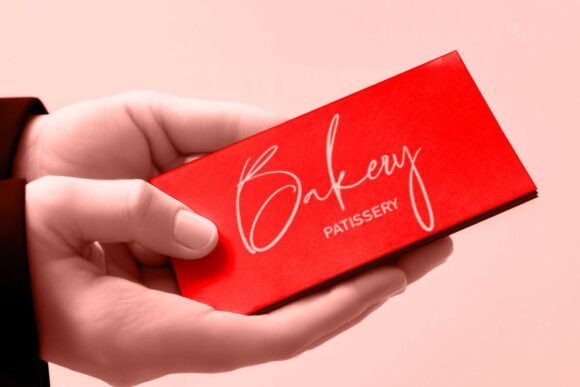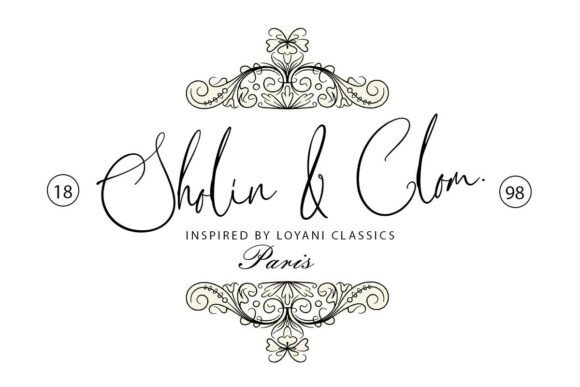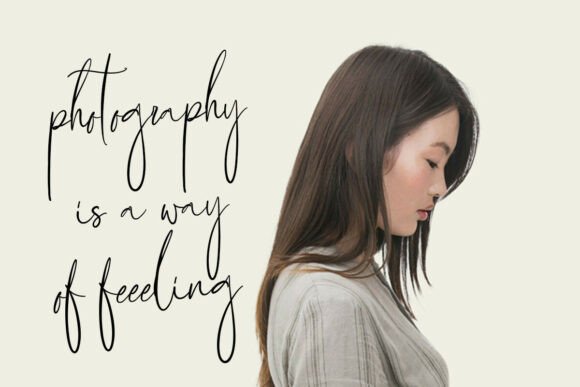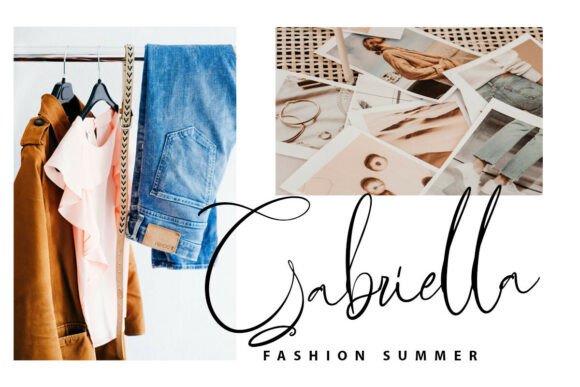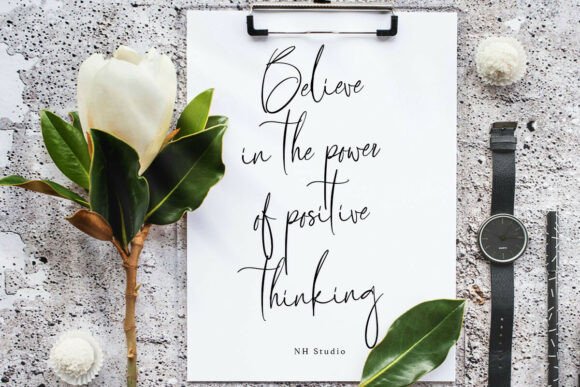
Introducing Bantha England Font: Elevate Your Designs with Artistic Flair and Contemporary Elegance
In the world of typography, few fonts manage to strike a balance between artistic expression and modern sophistication. Bantha England Font is one such exceptional typeface that brings together the fluidity of brush strokes, the dynamism of curves, and the expressiveness of letterforms. This stylish script font is designed to infuse your designs with a creative and sophisticated touch, making it perfect for a wide range of applications, from logos and invitations to packaging and social media graphics.
The Artistry of Bantha England Font
Bantha England Font is inspired by the art of hand-painted calligraphy, but with a modern twist that sets it apart from traditional script fonts. Its fluid brush strokes give each letterform a sense of movement and energy, as if they were painted by hand with a brush. The dynamic curves and expressive letterforms add a level of sophistication and elegance, making this font ideal for designs that require a touch of luxury and refinement.
Key Features of Bantha England Font
- Fluid Brush Strokes: The font’s fluid brush strokes give it a natural, hand-painted look that adds warmth and character to any design.
- Dynamic Curves: The dynamic curves in Bantha England Font create a sense of movement and fluidity, making it perfect for designs that require a sense of energy and dynamism.
- Expressive Letterforms: Each letterform in this font is designed to be expressive and unique, adding a touch of personality to your designs.
- Modern Twist: While inspired by traditional calligraphy, Bantha England Font has a modern twist that makes it perfect for contemporary designs.
Uses of Bantha England Font
Bantha England Font is a versatile typeface that can be used in a wide range of design applications, including:
- Logos: Create a lasting impression with a logo that features the elegant and artistic Bantha England Font.
- Invitations: Add a touch of sophistication and elegance to your invitations, whether it’s for a wedding, a party, or a formal event.
- Packaging: Elevate your product packaging with a font that exudes luxury and refinement.
- Social Media Graphics: Create eye-catching social media graphics that stand out from the crowd with Bantha England Font.
Why Choose Bantha England Font?
With so many fonts available, why choose Bantha England Font? Here are a few reasons why this font stands out:
- Unique and Creative: Bantha England Font is a unique and creative typeface that will set your designs apart from the crowd.
- Versatile: This font is versatile and can be used in a wide range of design applications.
- Easy to Read: Despite its artistic and expressive nature, Bantha England Font is easy to read, making it perfect for designs that require both style and substance.
- High-Quality: This font is designed to deliver high-quality results, whether you’re working on a print or digital project.
Bantha England Font is a stylish script font that offers the perfect blend of artistic flair and contemporary elegance. Its fluid brush strokes, dynamic curves, and expressive letterforms make it an ideal choice for designers and crafters looking to add a creative and sophisticated touch to their designs. Whether you’re working on a logo, invitation, packaging, or social media graphic, this font is sure to deliver both visual impact and versatility. So why settle for an ordinary font when you can elevate your designs with the exceptional Bantha England Font?
Experience the power of Bantha England Font and take your designs to the next level. With its natural flow and vibrant character, this font is sure to become a staple in your design toolkit.